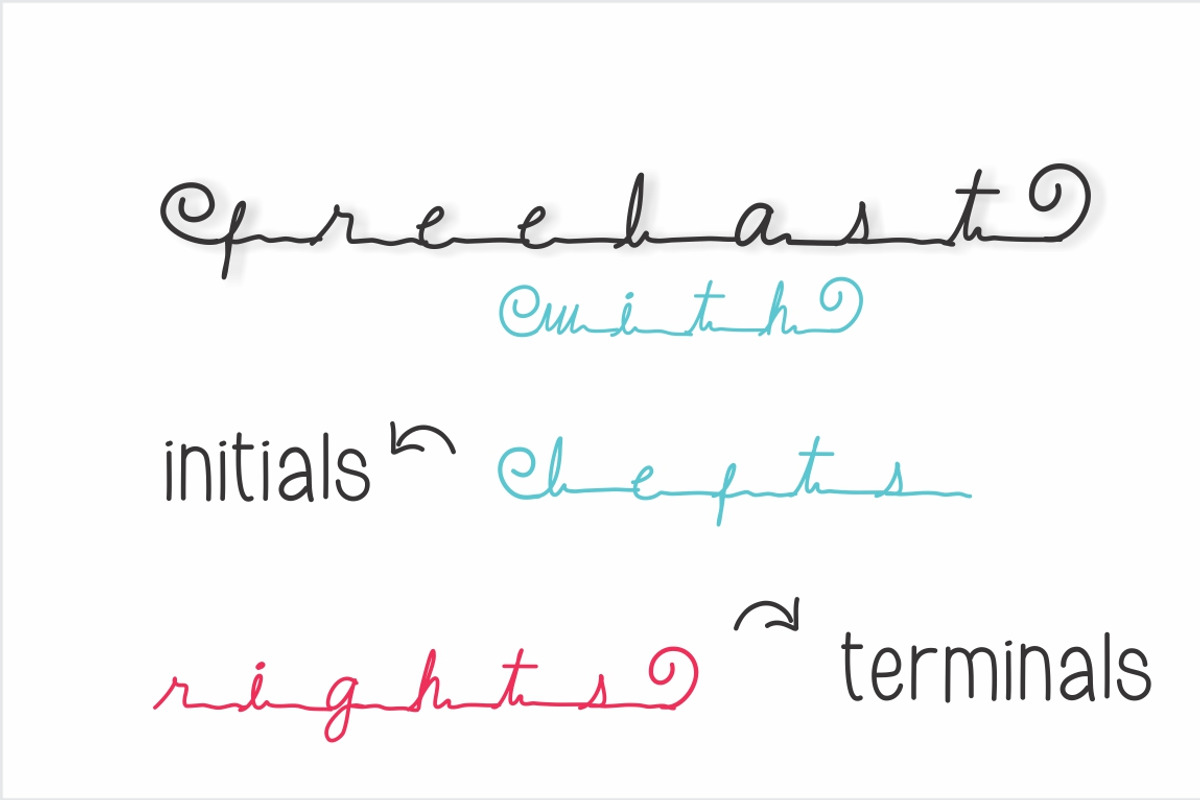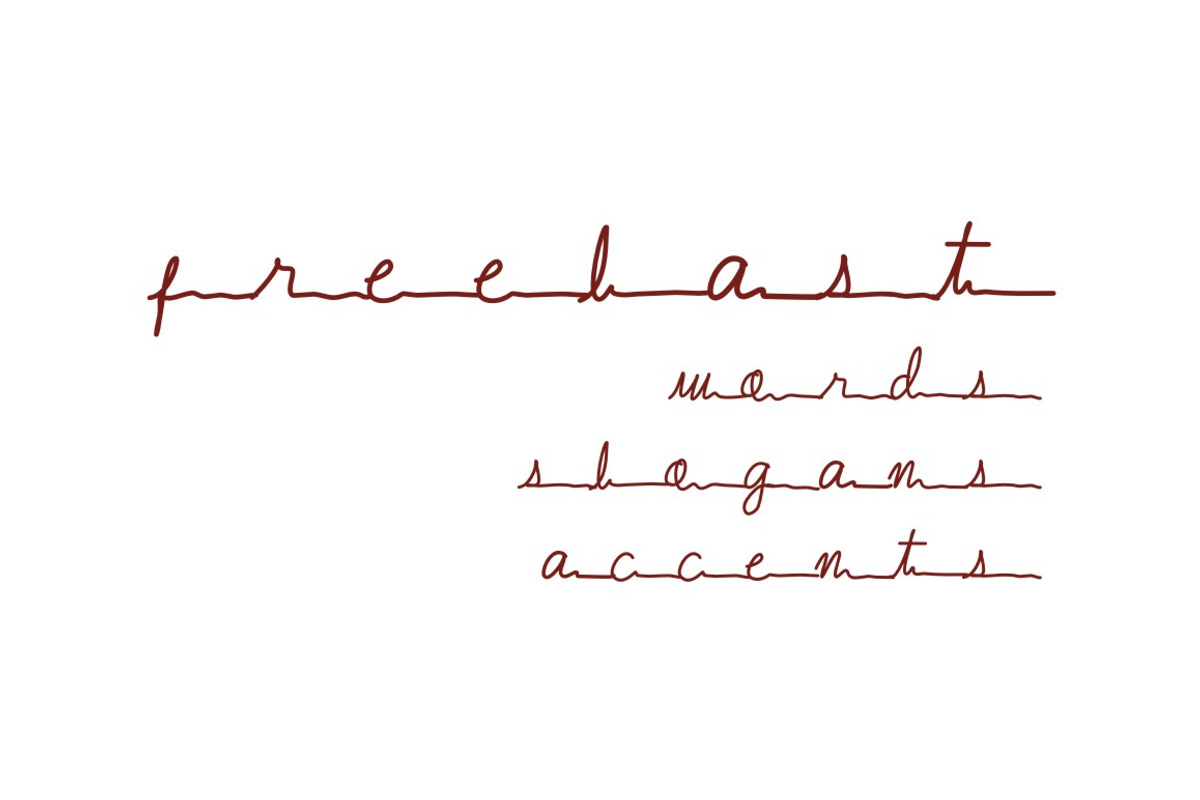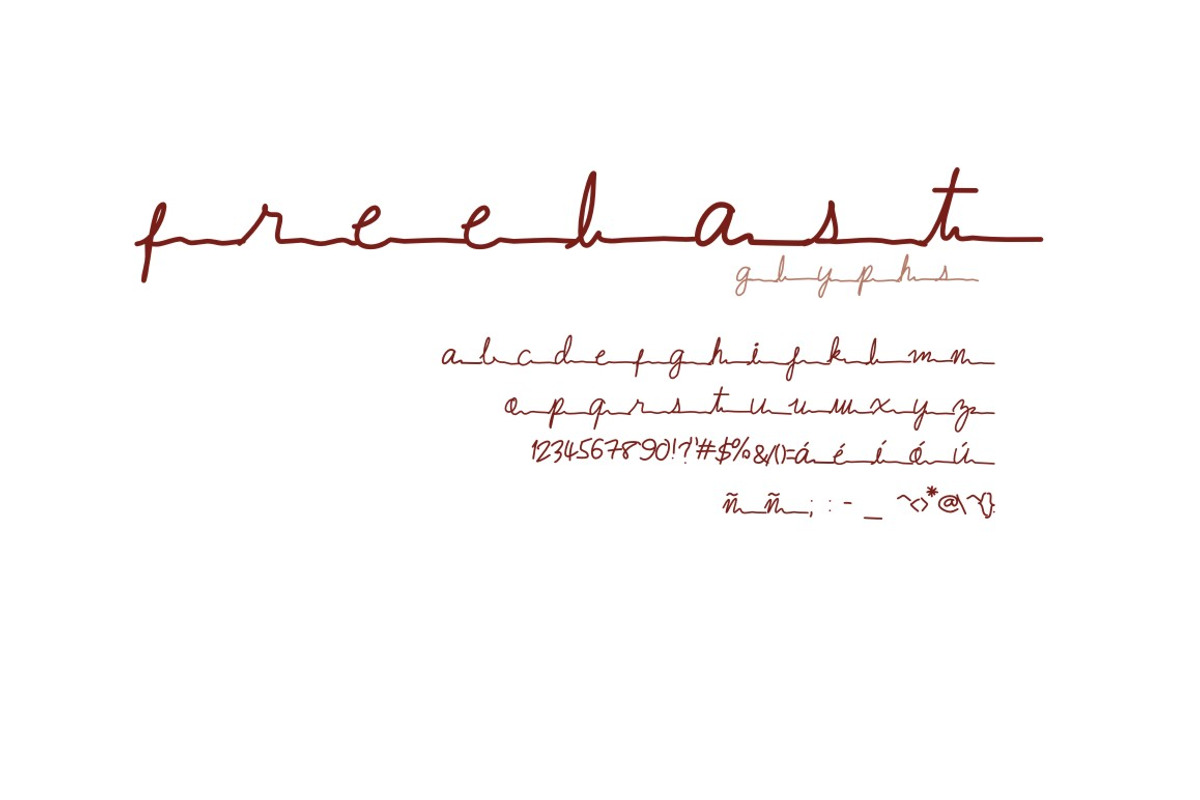
Freelast Font
Freelast Font by Fonts & Printables is a font selected for branding, posters, packaging, typography.
- Now includes Freelastlefts and Freelastrights!
- Only small caps, a vintage font special designed to accent logos with slogans.
Why Freelast Font is worth a look
Freelast Font by Fonts & Printables fits naturally into Branding, posters, packaging, typography.